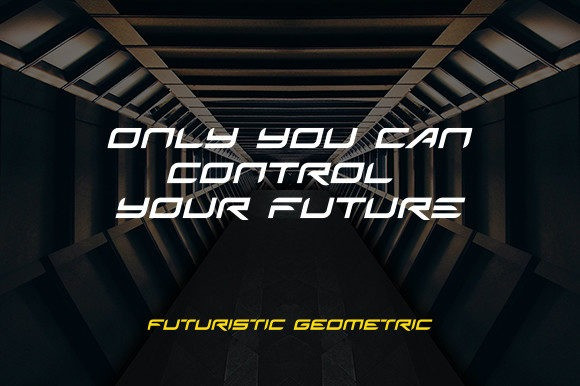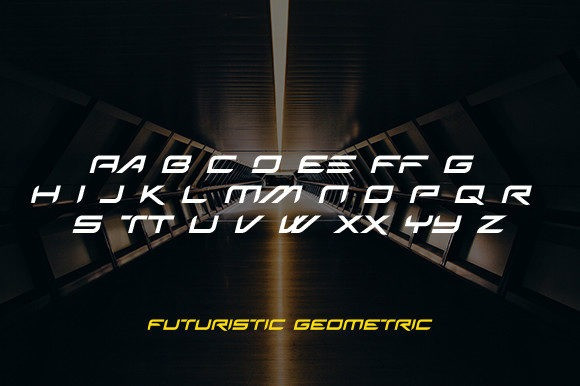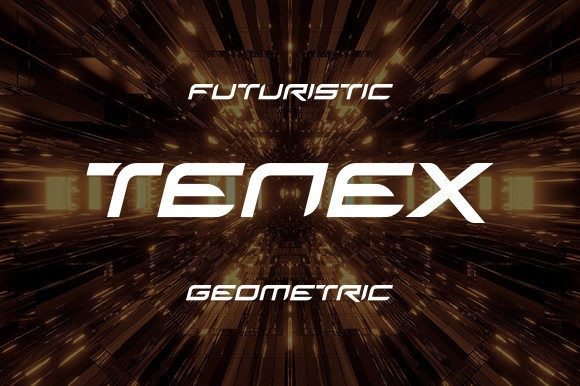
Tenex Font
Tenex Font is a futuristic, modern, sci-fi and geometric display font. It’s great for logos, t-shirt designs, apparel, posters, banners, streetwear designs and various other creations.